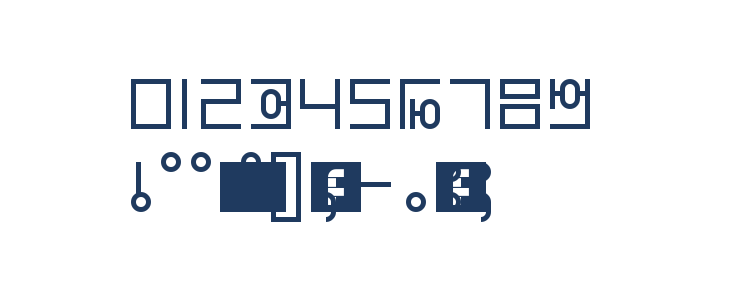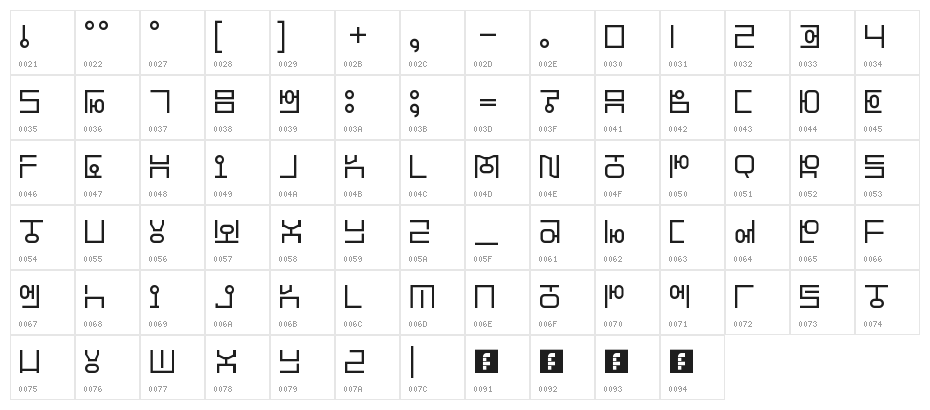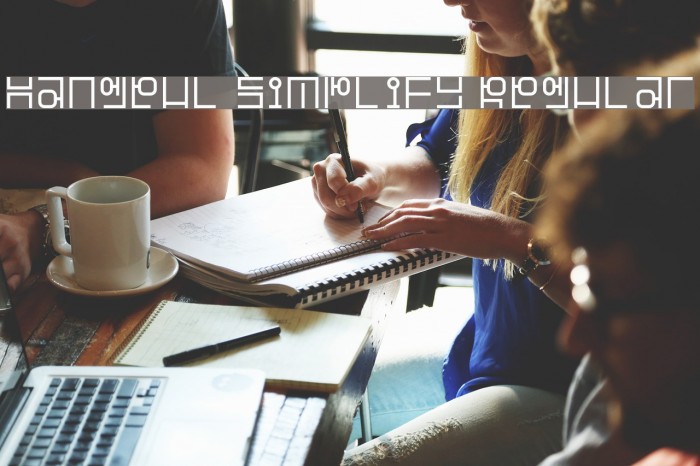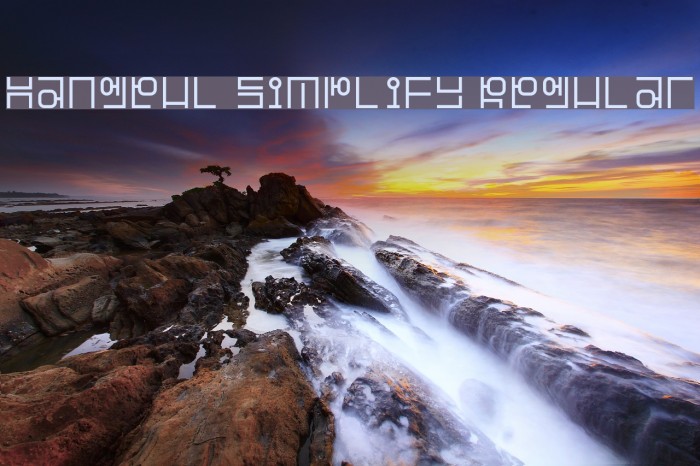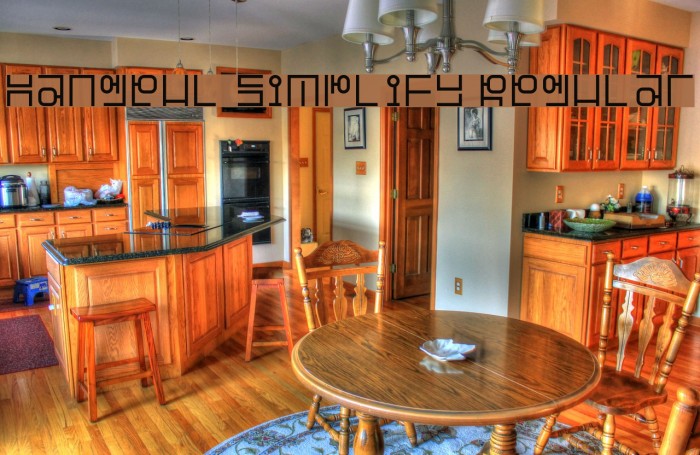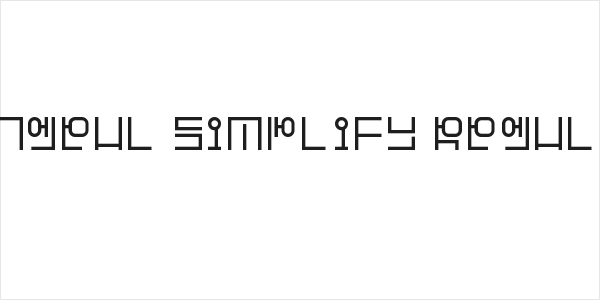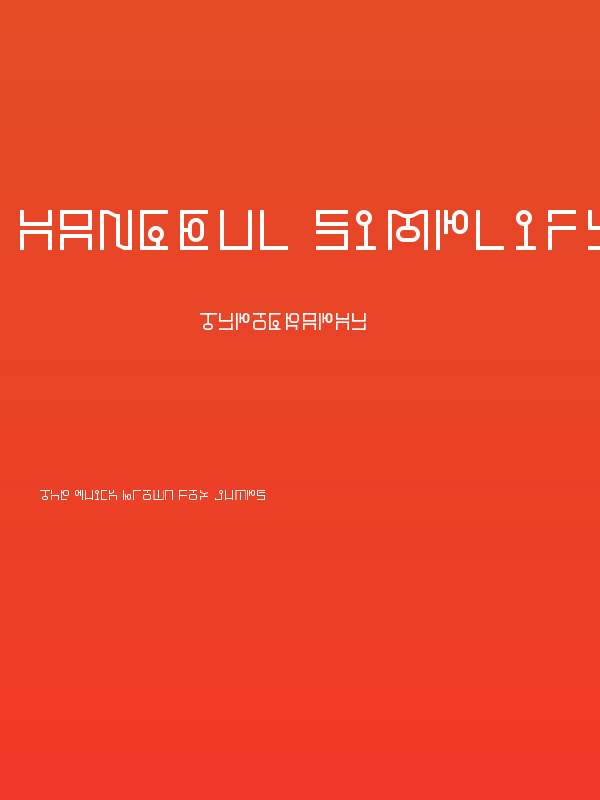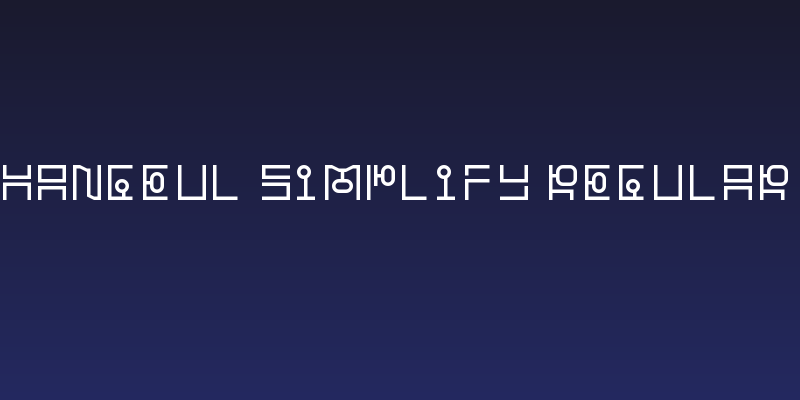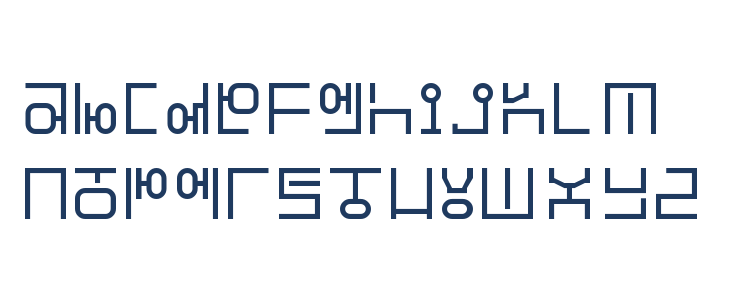
Hangeul Simplify Regular Font
Hangeul Simplify Regular Description
This font features a unique blend of geometric and minimalistic design elements, characterized by its clean lines and simplified forms. The characters are constructed with a consistent stroke width, giving it a uniform appearance. The font maintains a modern aesthetic with its straight edges and rounded corners, creating a harmonious balance between rigidity and softness. The uppercase and lowercase letters share a similar height, enhancing the font's uniformity. The numerals and special characters are designed to complement the alphabet, maintaining the same geometric style. This font is ideal for projects that require a contemporary and sleek look.
| Use Case | Headlines, Logos, Digital Interfaces |
| Proposed Projects | Ideal for branding, digital interfaces, modern posters, and minimalist design projects. |